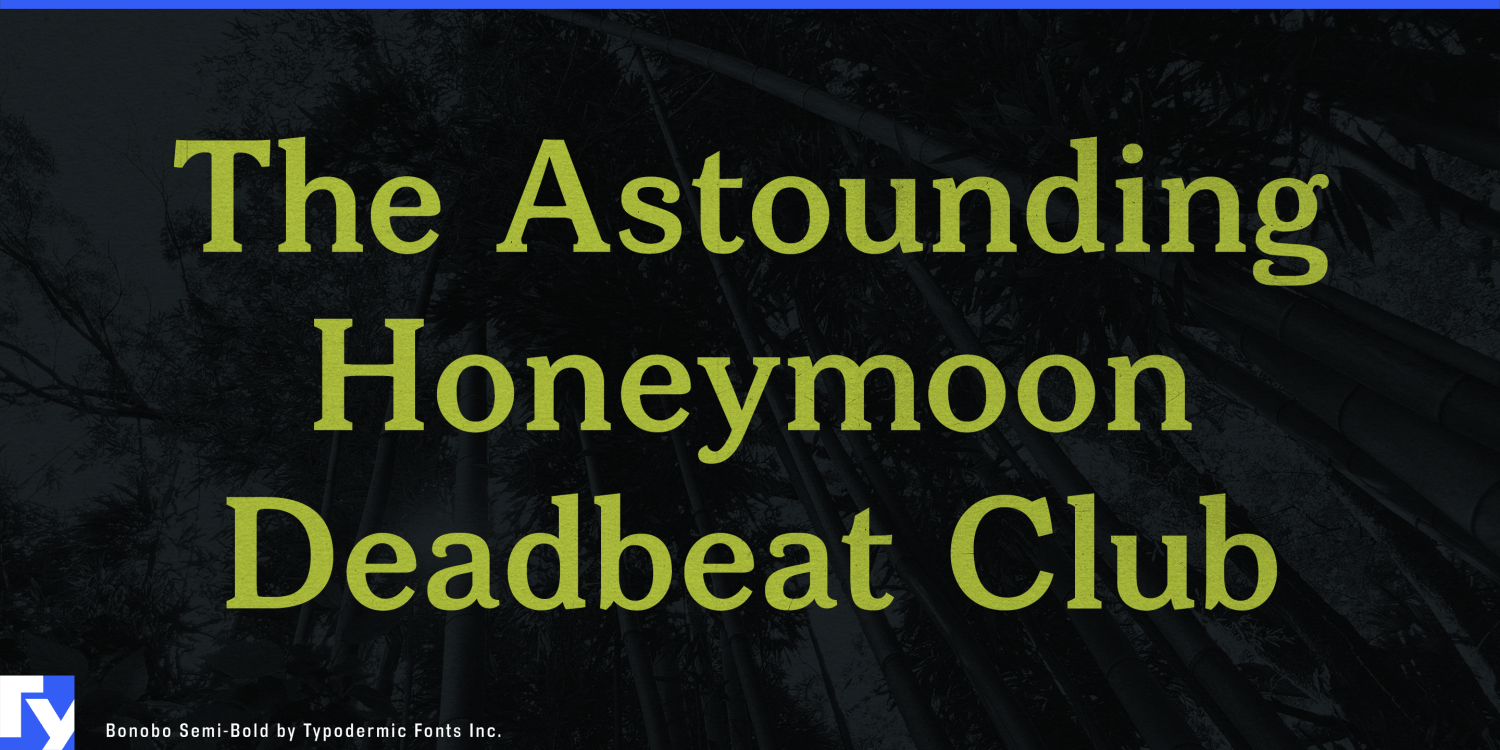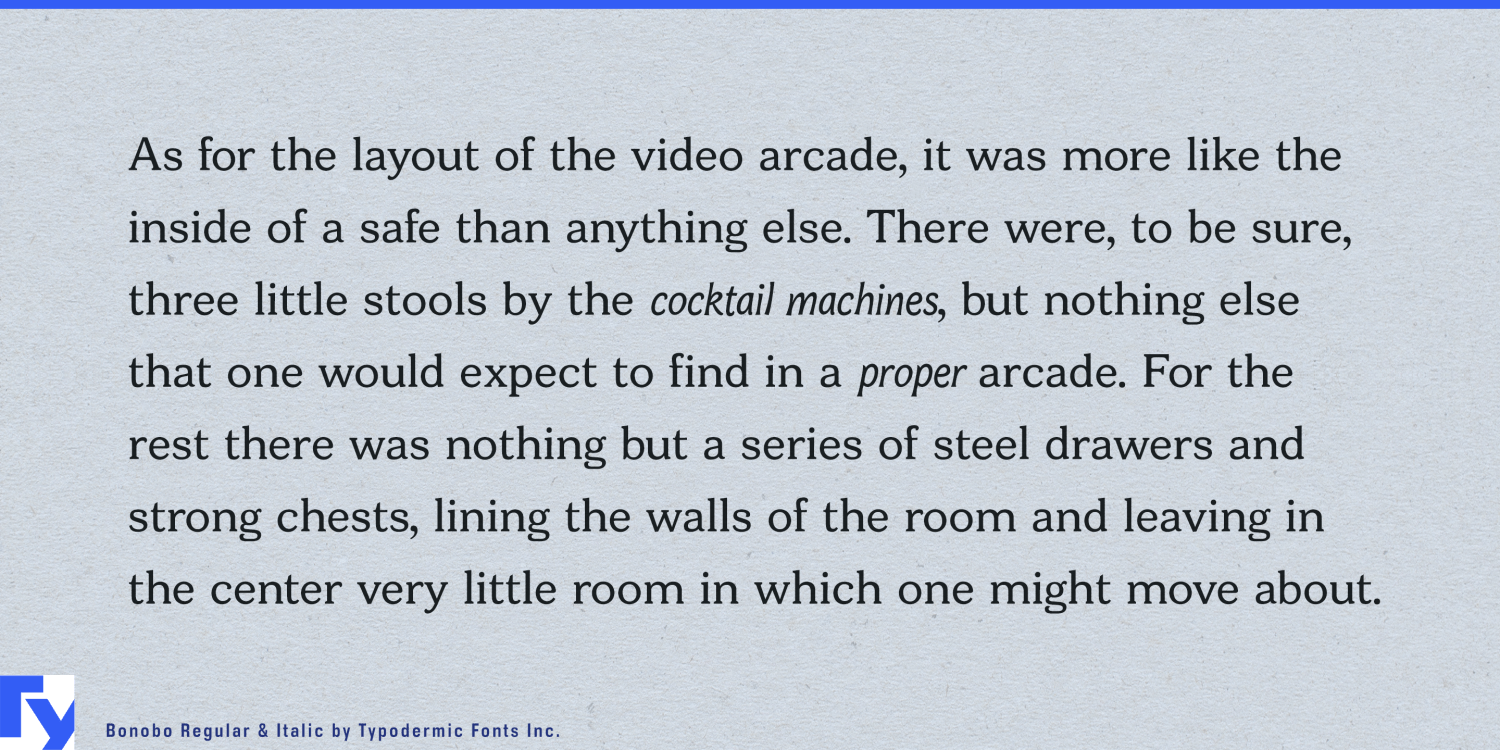
About Bonobo
Introducing Bonobo, a transitional serif typeface that brings a refreshing blend of friendliness and refinement to your typographic palette. This versatile font family seamlessly bridges the gap between casual charm and professional polish, making it…